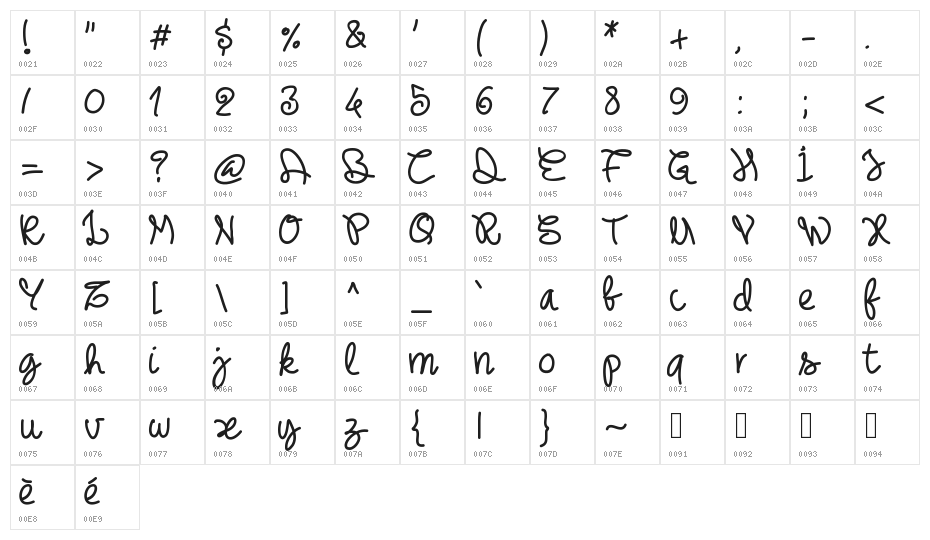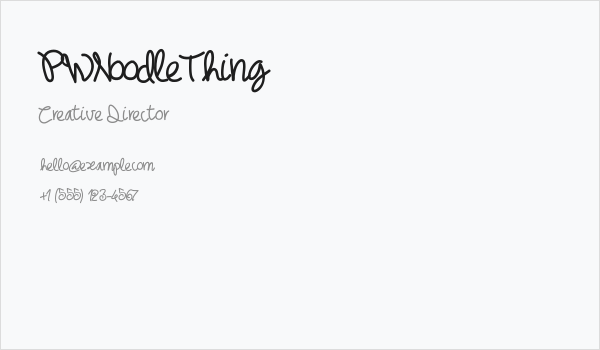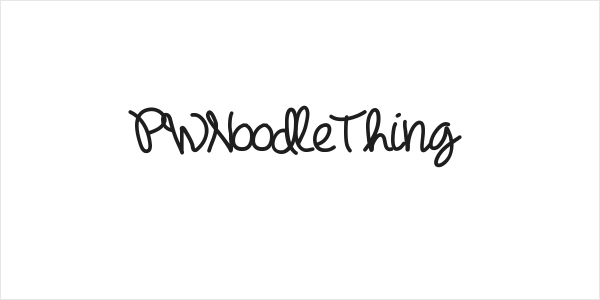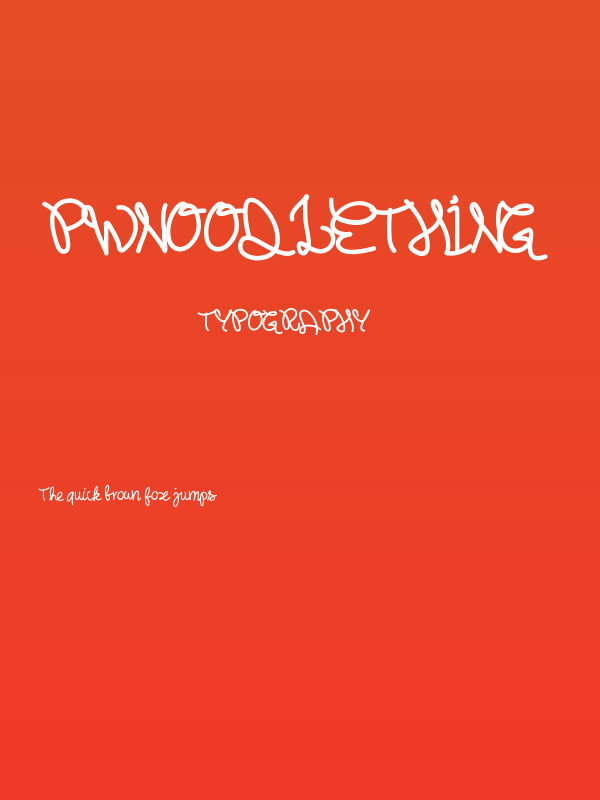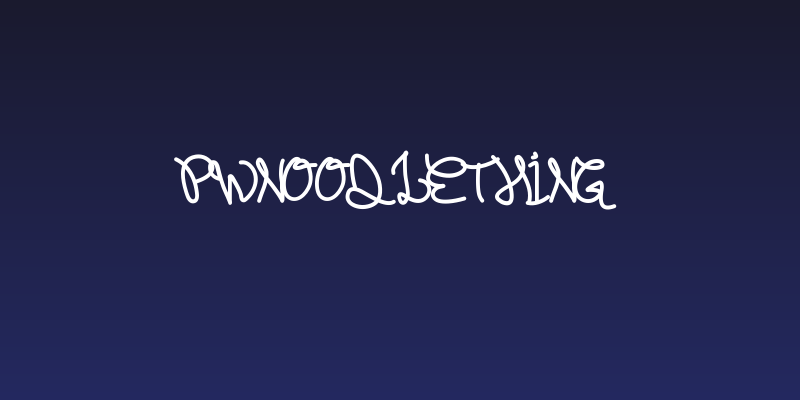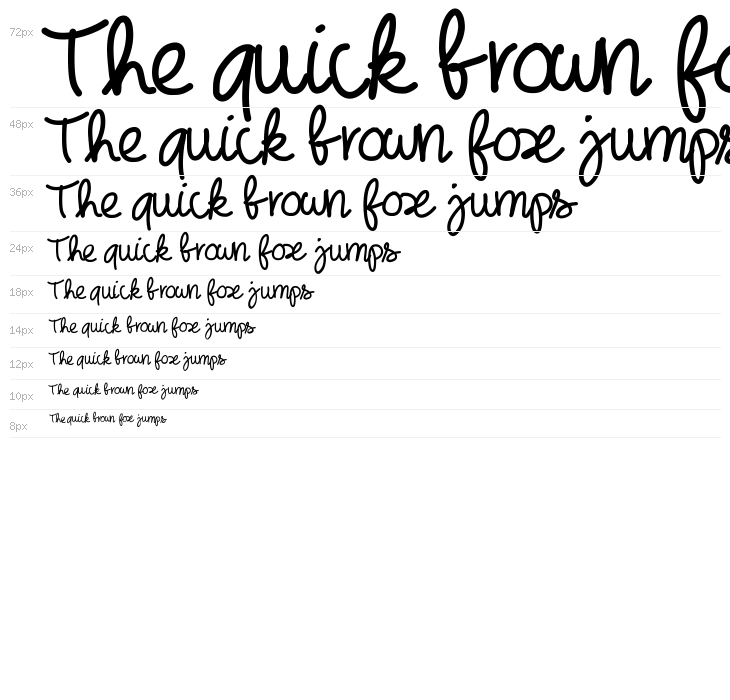
PWNoodleThing Font
PWNoodleThing Description
This playful and energetic font features a handwritten style with a lively, flowing script. The characters are bold and rounded, giving a sense of movement and spontaneity. The uppercase and lowercase letters maintain a consistent style, with loops and curves that add a whimsical touch. Numbers and special characters are equally dynamic, fitting seamlessly into the overall design. The font's informal and friendly appearance makes it ideal for projects that require a personal touch or a casual vibe.
| Overall Style | Playful |
| Use Case | Logos, Invitations, Social Media Graphics |
| Proposed Projects | Perfect for greeting cards, invitations, playful branding, and social media graphics. |